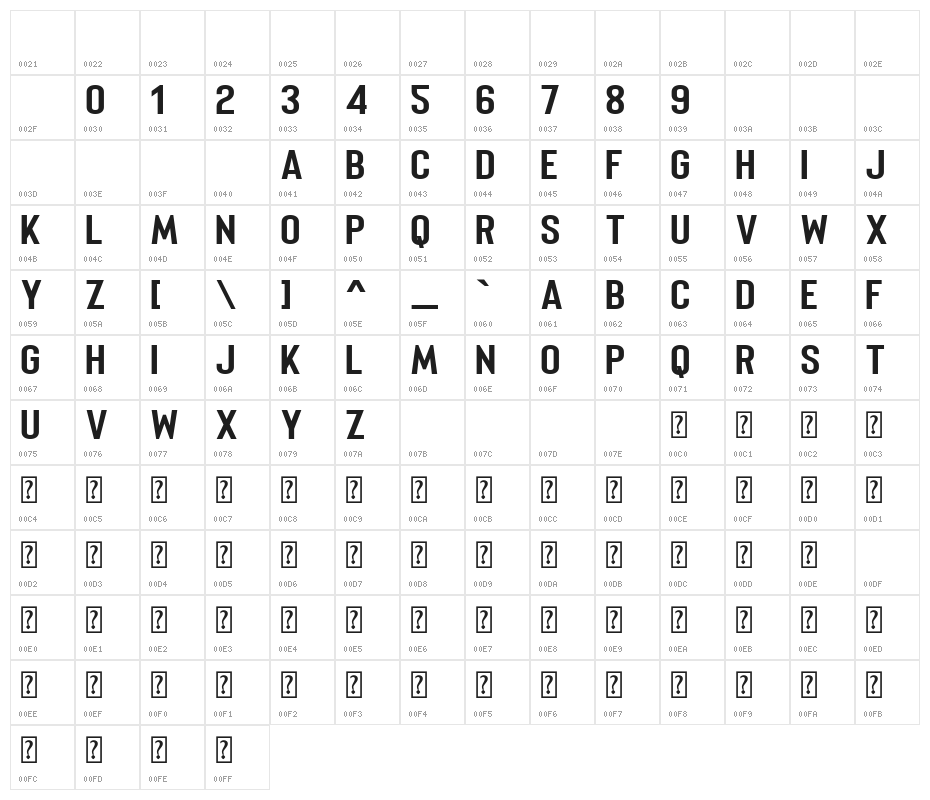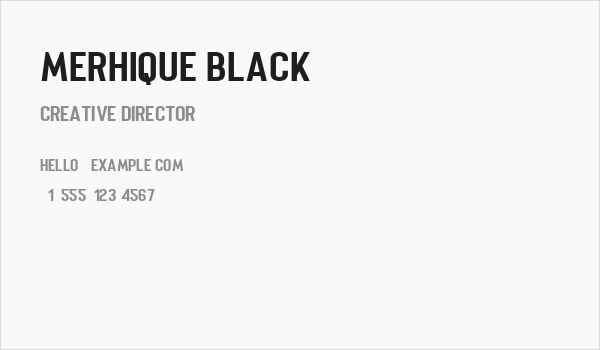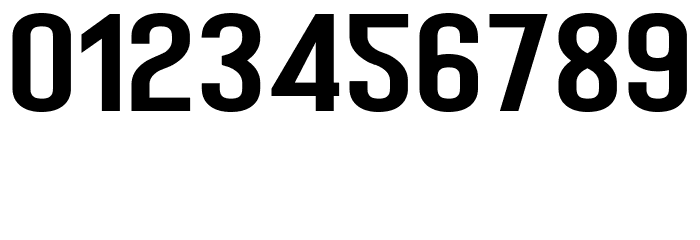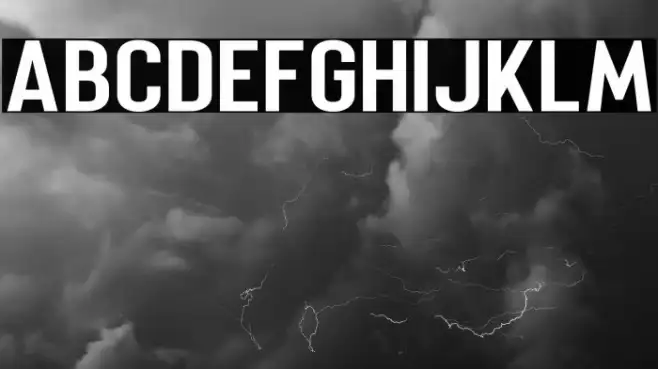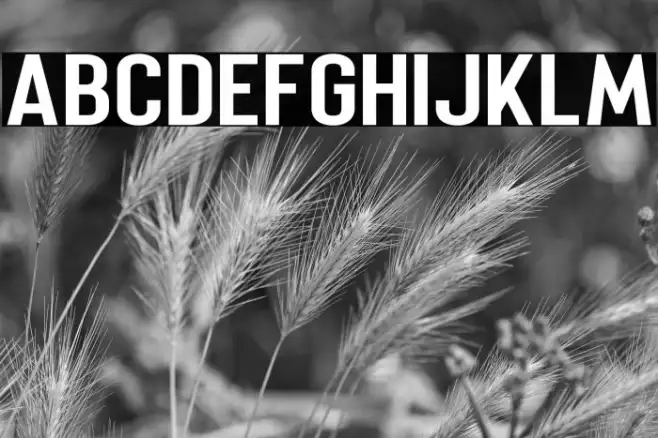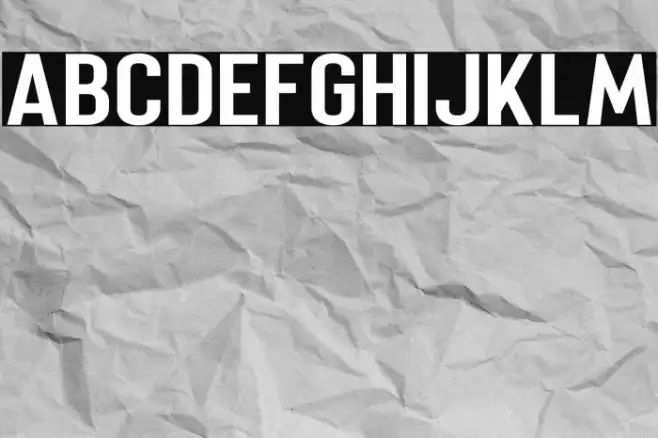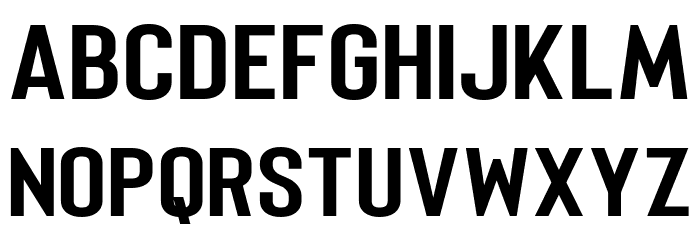
Merhique Black Font
Merhique Black Description
This font features a bold and assertive design with thick, uniform strokes that convey strength and modernity. The characters are sans-serif, giving them a clean and straightforward appearance. The uppercase letters are tall and commanding, while the lowercase letters maintain a consistent height, ensuring readability. The numerals are equally bold, matching the overall robust style of the font. The design is versatile, suitable for a variety of applications where a strong visual impact is desired.
| Proposed Projects | Ideal for branding, advertising, headlines, posters, and any project requiring a bold statement. |